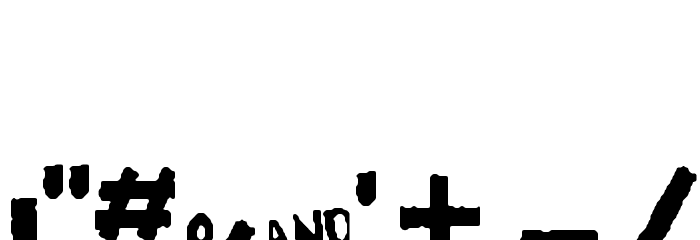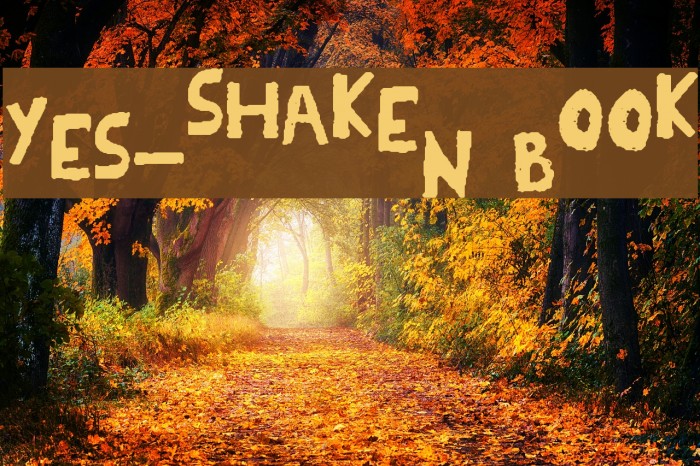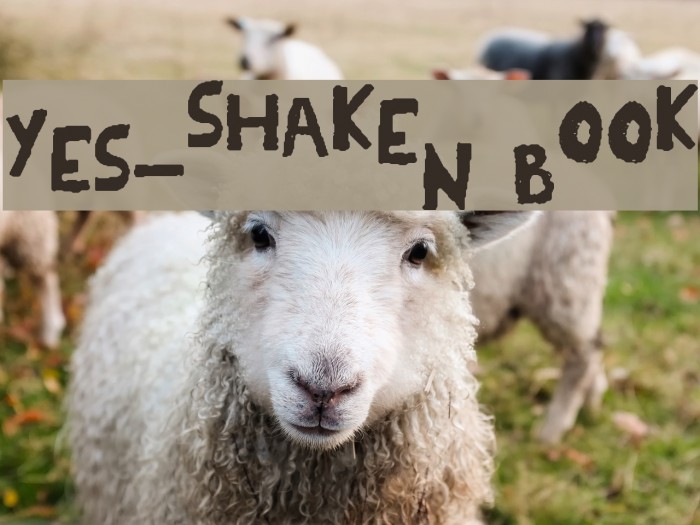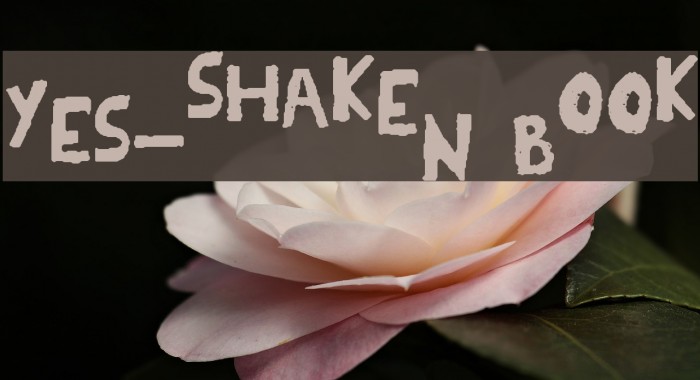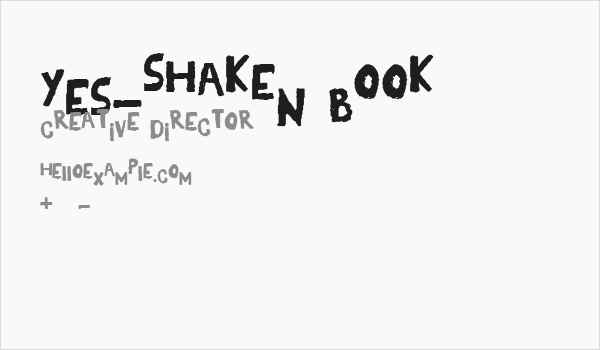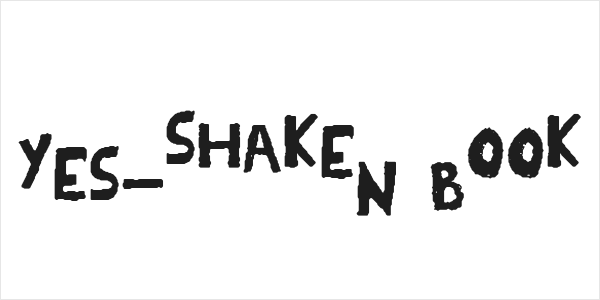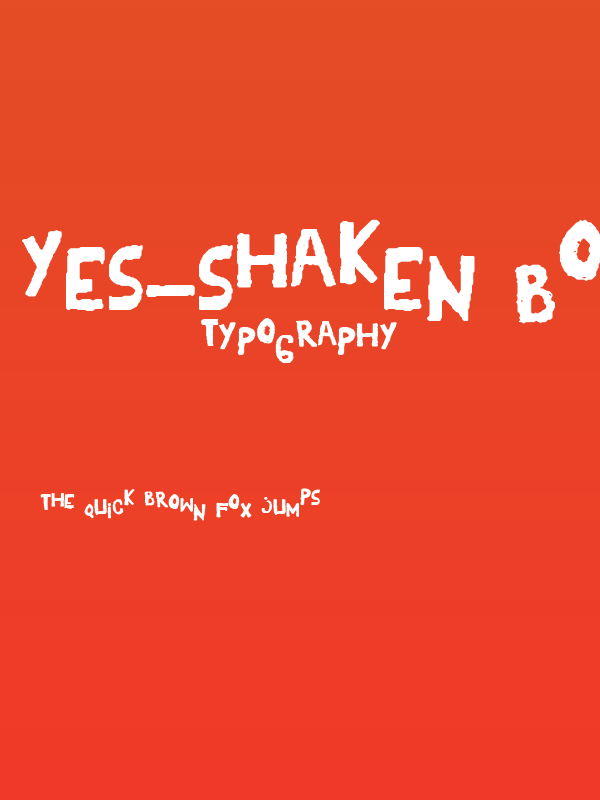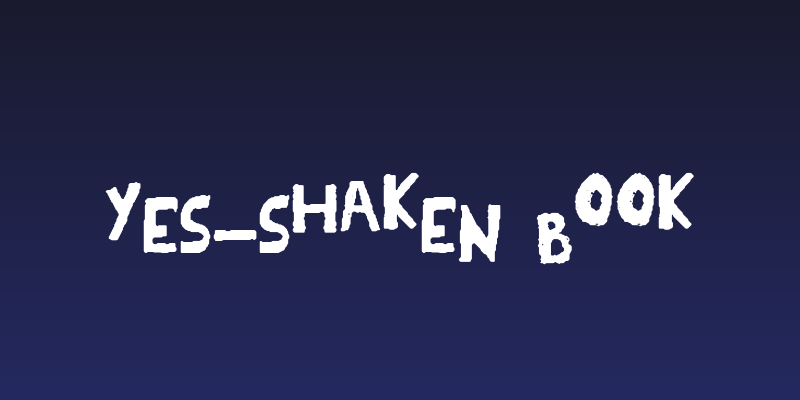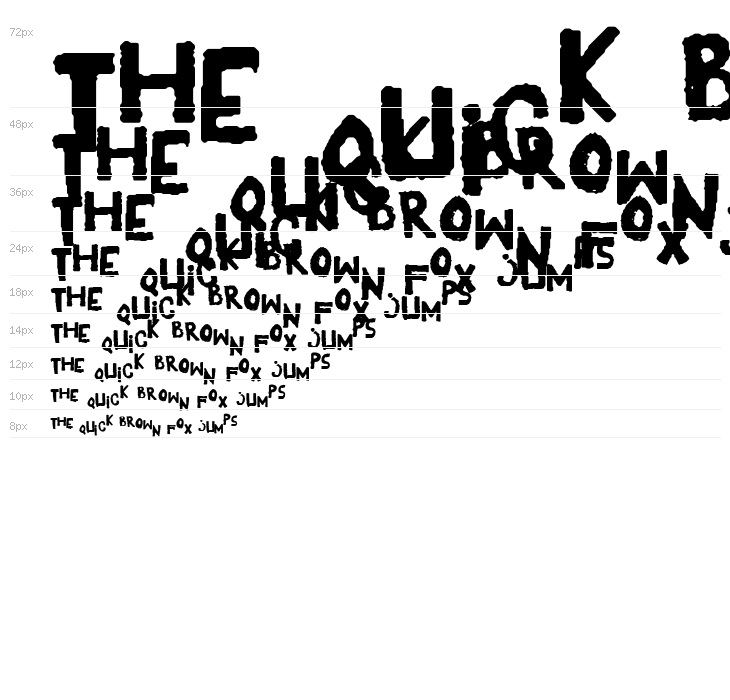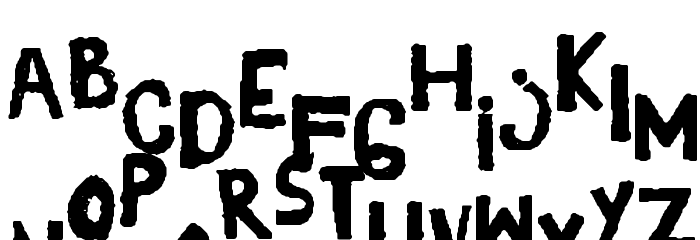
YES_shaken Book Font
YES_shaken Book Description
This font exhibits a playful and chaotic style, characterized by its uneven and irregular letterforms. Each character appears hand-drawn, with varying thickness and a slightly tilted orientation, giving it a dynamic and energetic feel. The uppercase and lowercase letters maintain a consistent whimsical aesthetic, while the numbers and special characters follow suit with their quirky and bold presentation. This font's unique and artistic design makes it stand out, offering a sense of movement and creativity.
| Overall Style | Playful, Artistic |
| Proposed Projects | Ideal for creative projects such as children's book covers, playful branding, artistic posters, and informal invitations. |